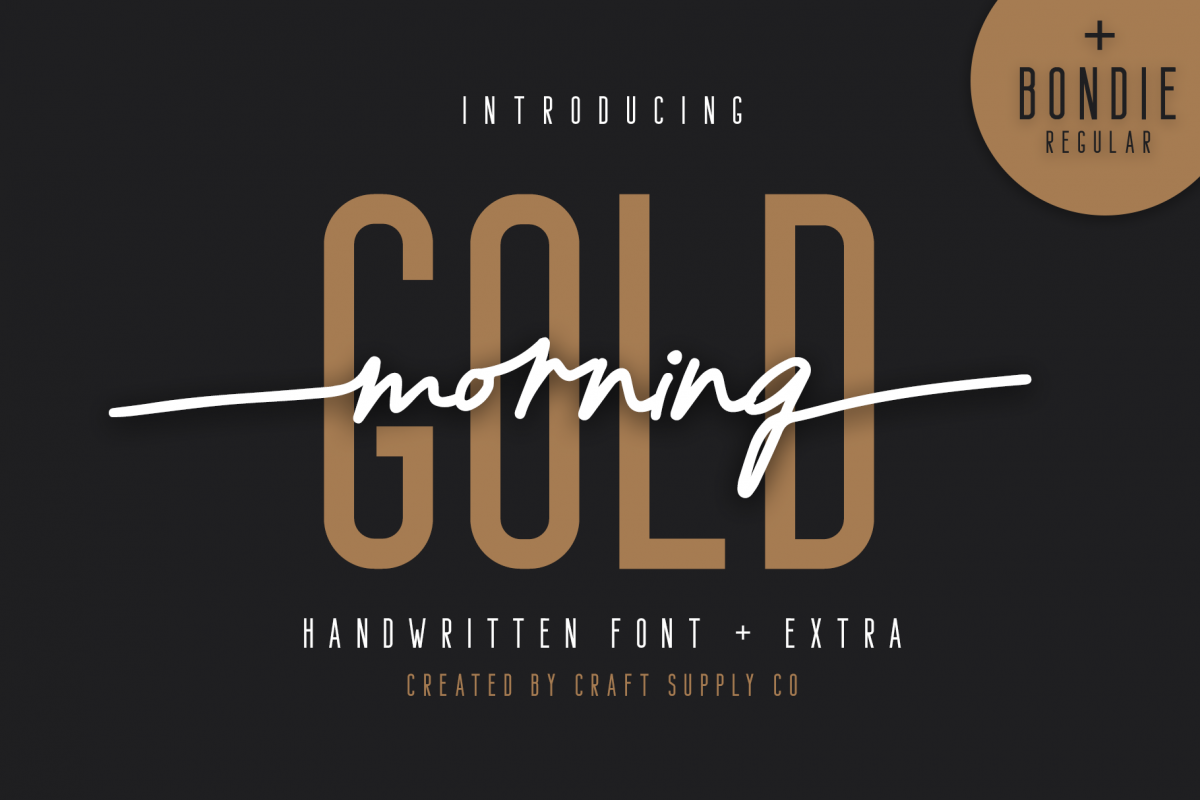
Morning Gold - Handwritten Font
Morning Gold - Handwritten Font + Extra is an handwritten script font based on the expression of real handwriting. Morning Gold - Handwritten Font + Extra will work perfectly for fashion, e-commerce brands, trend blogs, wedding boutiques or any business that wants to appear upscale and chic.
Morning Gold - Handwritten Font + Extra also Suitable for Logo, greeting cards, quotes, posters, branding, name card, stationary, design title, blog header, art quote, typography, art, modern envelope lettering or book design, happening style like handdrawn design or watercolor design theme, craft design, any DIY project, book title, or any purpose to make our art/design project look pretty and trendy.
1. Uppercase & Lowercase
2. Ligatures & Stylistic Alternates (al ar el et il ir it ll or ot sl sr st tt ul ur ut)
3. Standard Ligatures
4. Numerals & Punctuations (OpenType Standard)
5. Accents/Multilingual characters (AÀÁÂÃÄÅCÇDÐEÈÉÊËIÌÍÎÏNÑOØÒÓÔÕÖUÙÜÚÛWYÝŸỲŸÆŒßÞ)